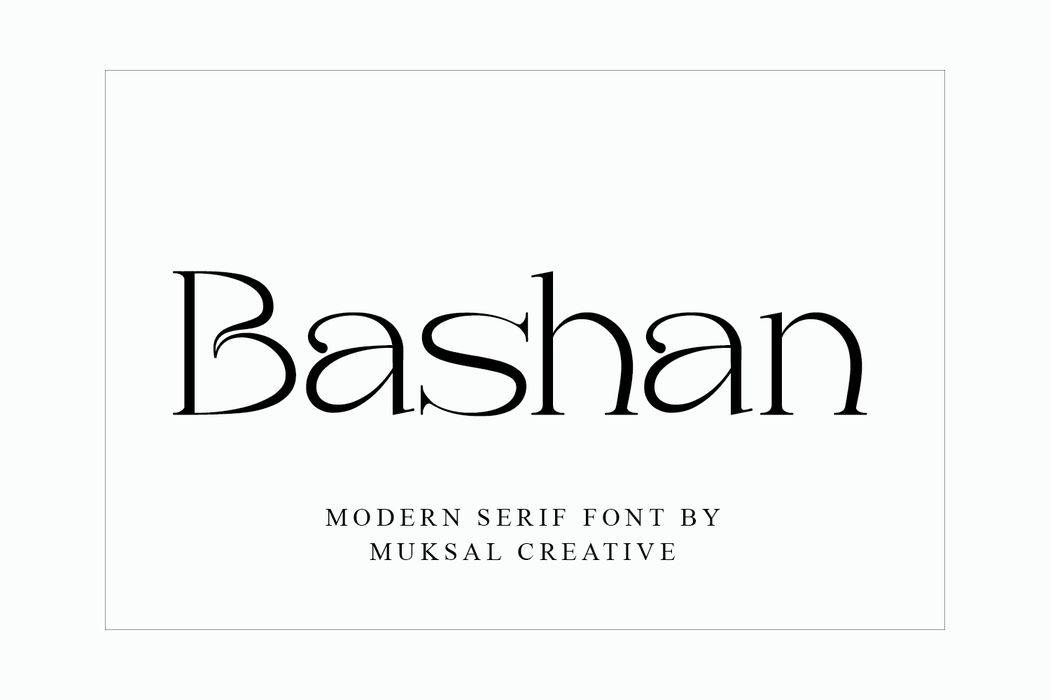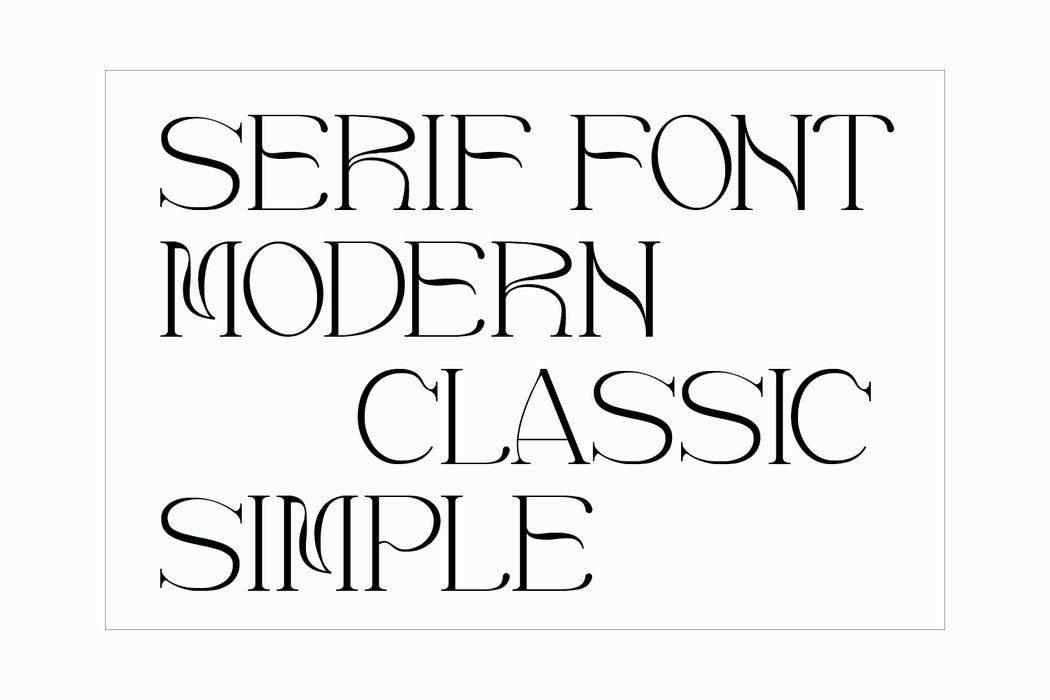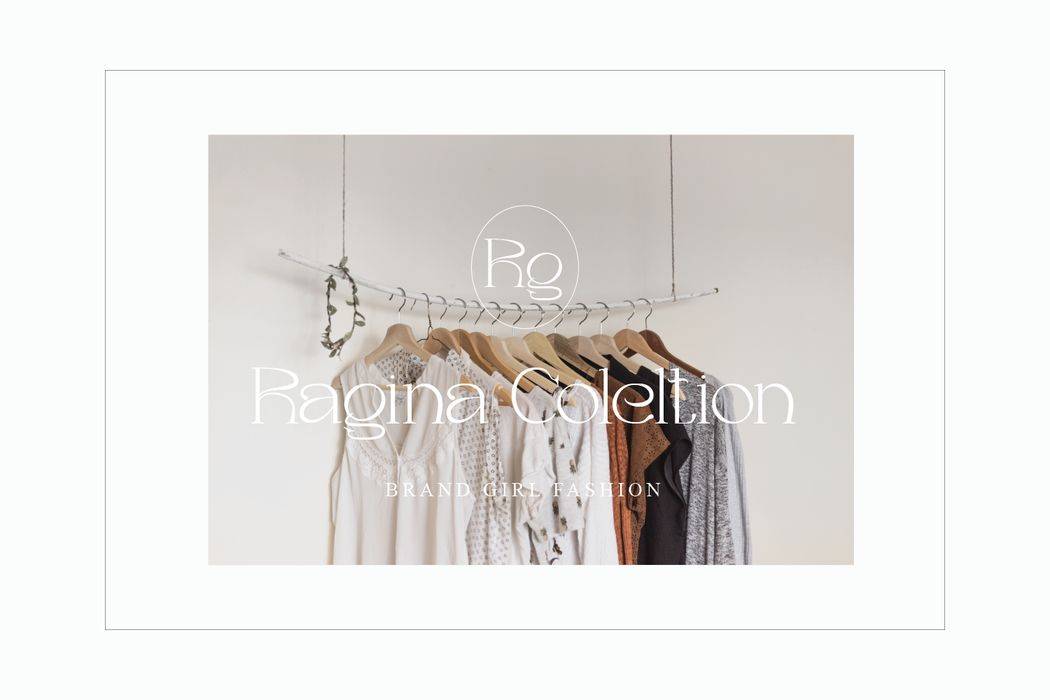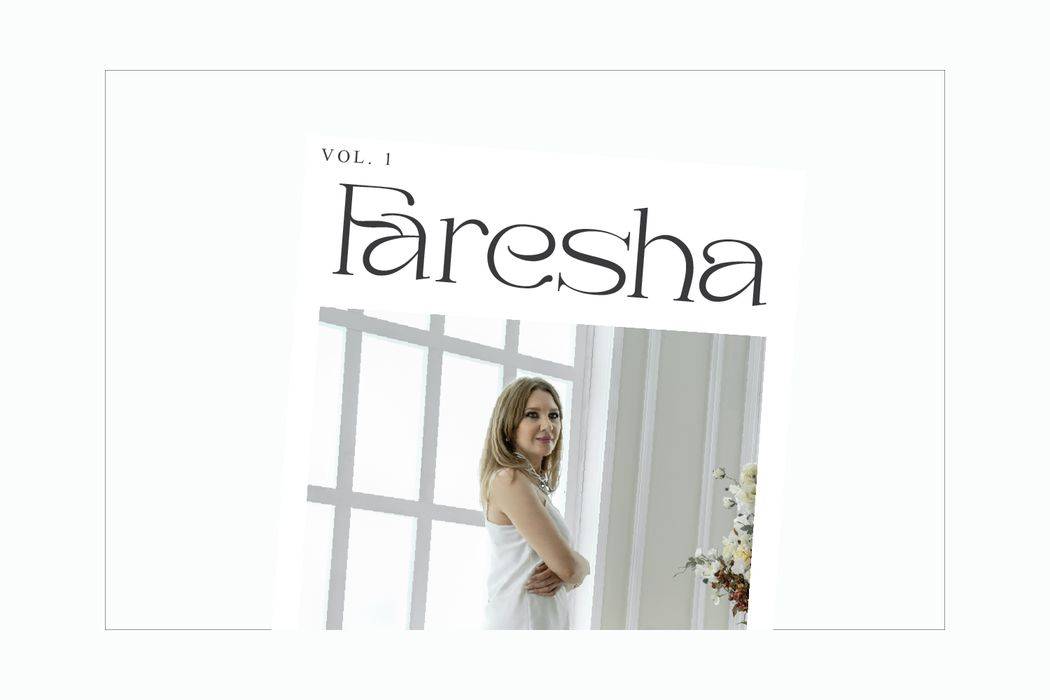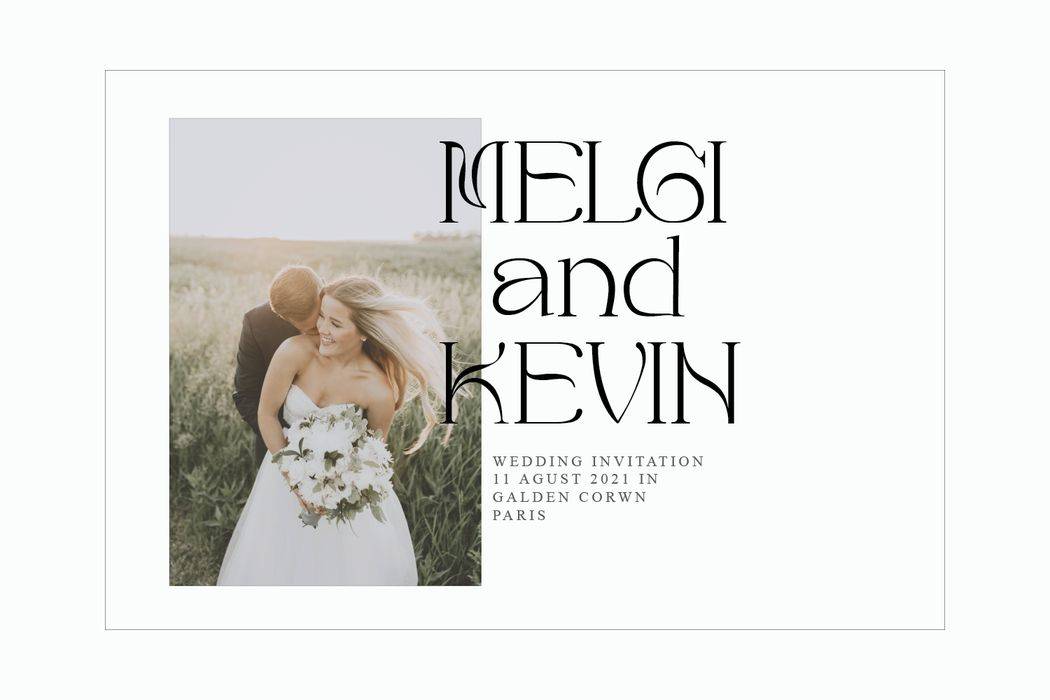
Bashan is a delicate serif font with a modern, elegant twist, featuring thin and high-contrast strokes that give it a graceful, almost calligraphic feel. Its tall x-height and unique letterforms, such as the curved tails and slender serifs, make it perfect for sophisticated branding, editorial design, and stylish headlines where a refined and artistic impression is desired. This font works beautifully in luxury contexts and creative projects seeking a touch of distinctive elegance.
Bashan Font
About Bashan Font